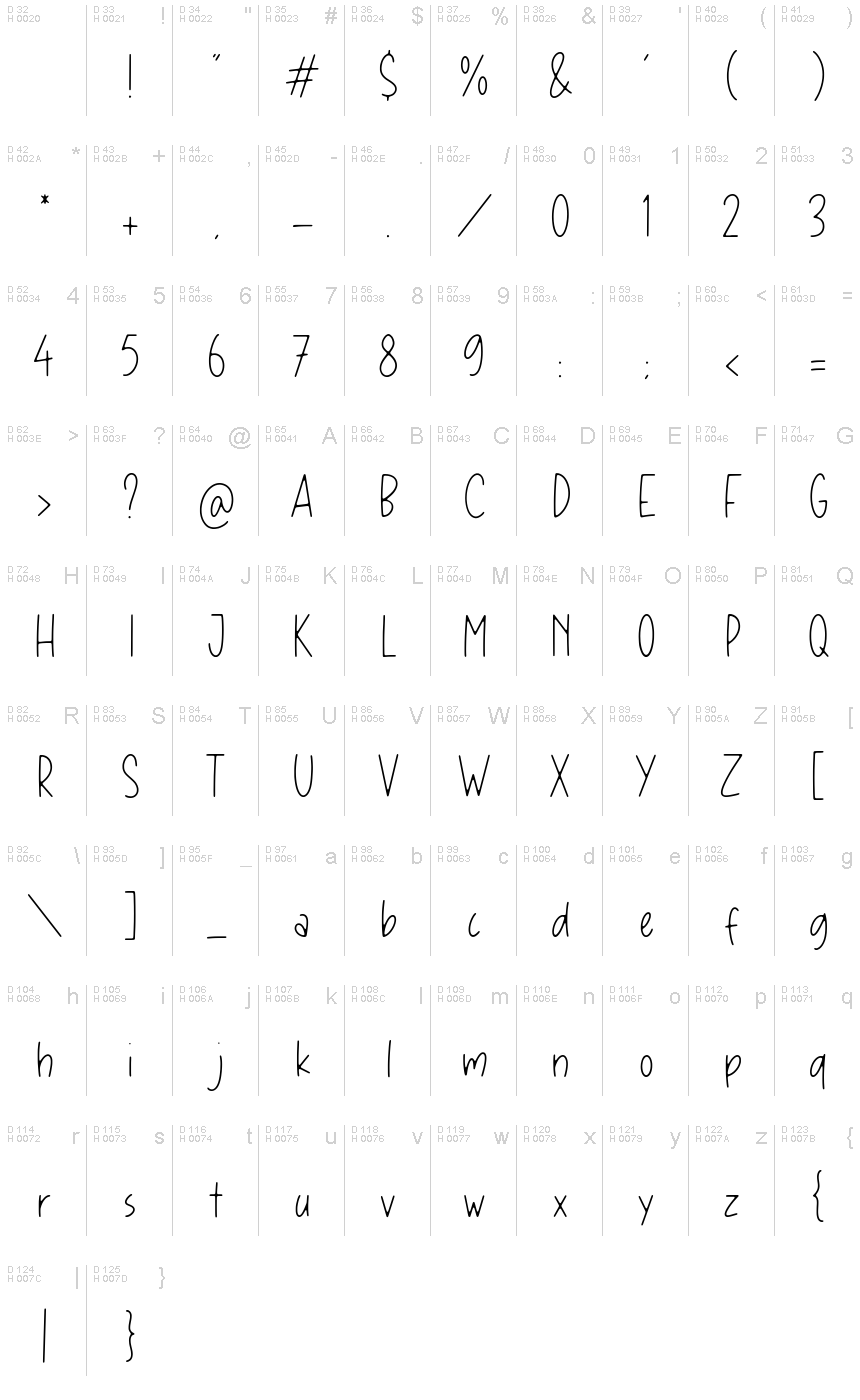
Creamy Bubble
Creamy Bubble, a handwritten font crafted by Balpirick Studio, exudes a delightful, whimsical charm. With its light, condensed strokes, this font radiates a sense of effortless elegance, evoking the feeling of a warm, inviting atmosphere. The organic, flowing lines and playful character shapes lend a touch of personality to any design, captivating the viewer with its distinct personality.
Creamy Bubble's versatility shines through, making it a versatile choice for a wide range of design applications. From greeting cards and stationery to packaging and branding, this font's unique qualities seamlessly integrate into various creative projects, adding a touch of playfulness and warmth to the overall aesthetic.